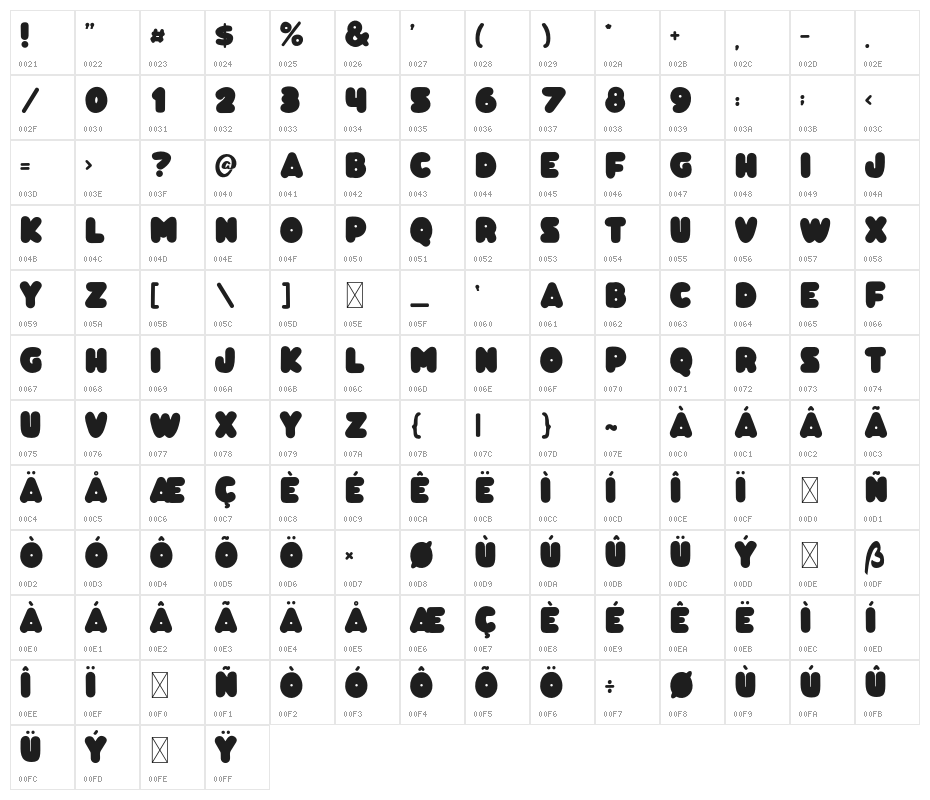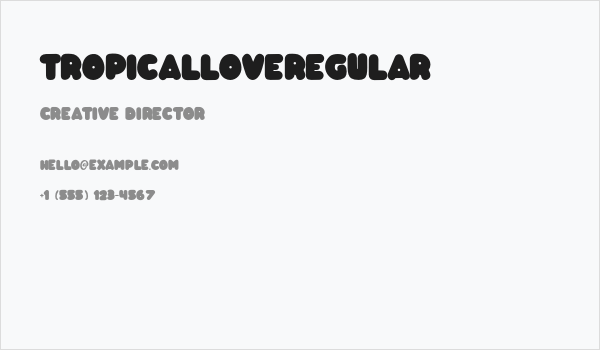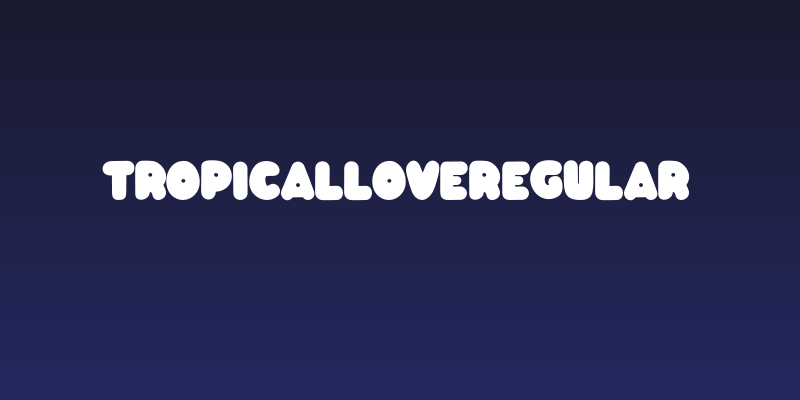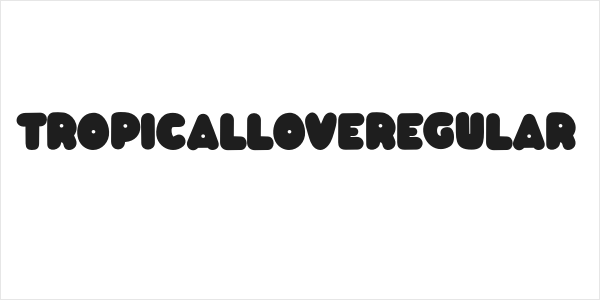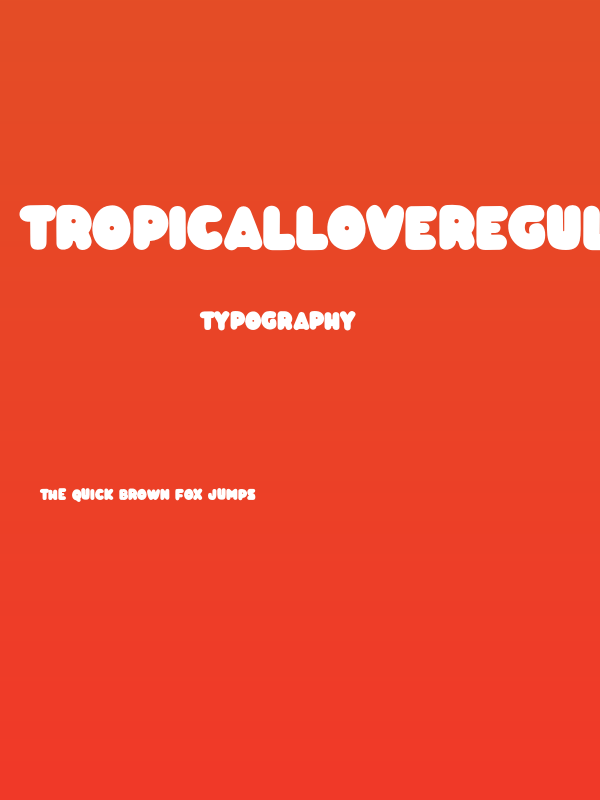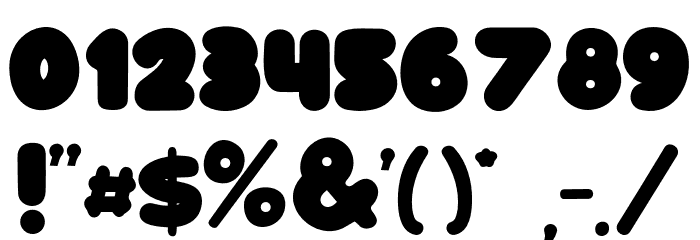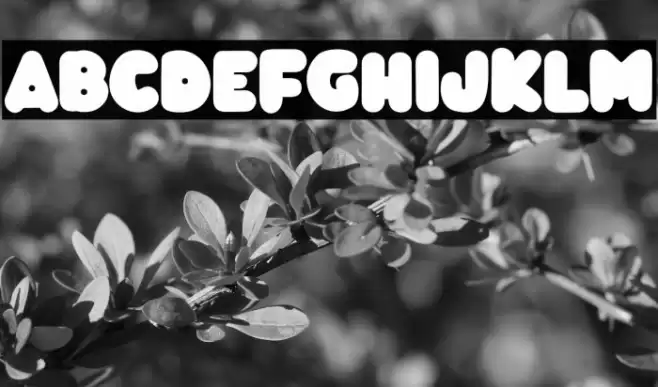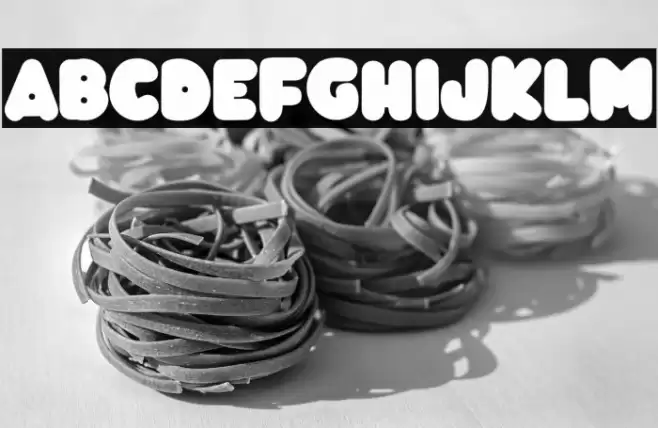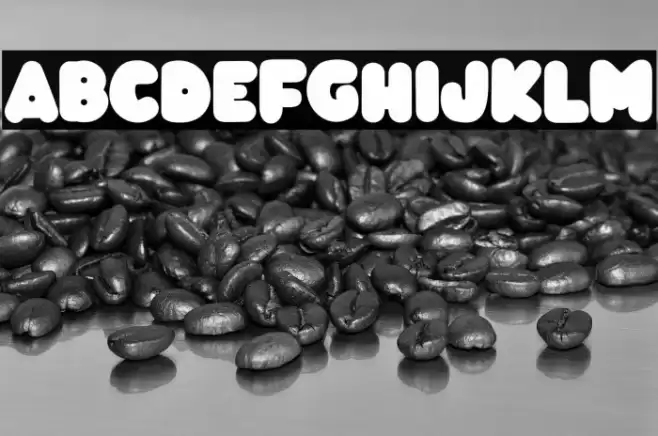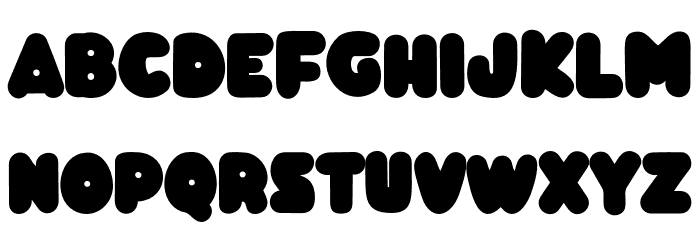
TropicalLoveRegular Font
TropicalLoveRegular Description
This playful and bold font features rounded, bubble-like characters that exude a sense of fun and whimsy. The letters are uniformly thick, creating a strong visual impact. The style is reminiscent of retro designs, with a modern twist that makes it suitable for contemporary projects. The characters are evenly spaced, ensuring readability despite their unique shape. The font includes a full set of uppercase and lowercase letters, numbers, and a variety of special characters, making it versatile for different design needs.
| Overall Style | Playful, Retro |
| Proposed Projects | Ideal for children's books, playful branding, party invitations, and eye-catching posters. |